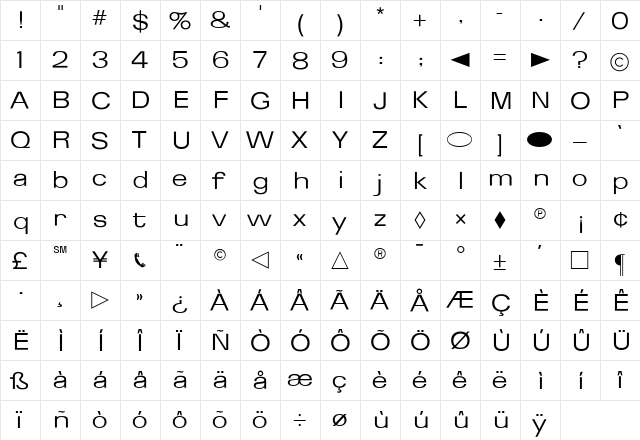
CgBraziliaThree Medium Font Preview
CgBraziliaThree Medium
CgBraziliaThree Medium Font Details
Design Context for CgBraziliaThree Typeface
CgBraziliaThree is a composed and adaptable typeface that performs quietly and consistently across a wide range of design contexts.